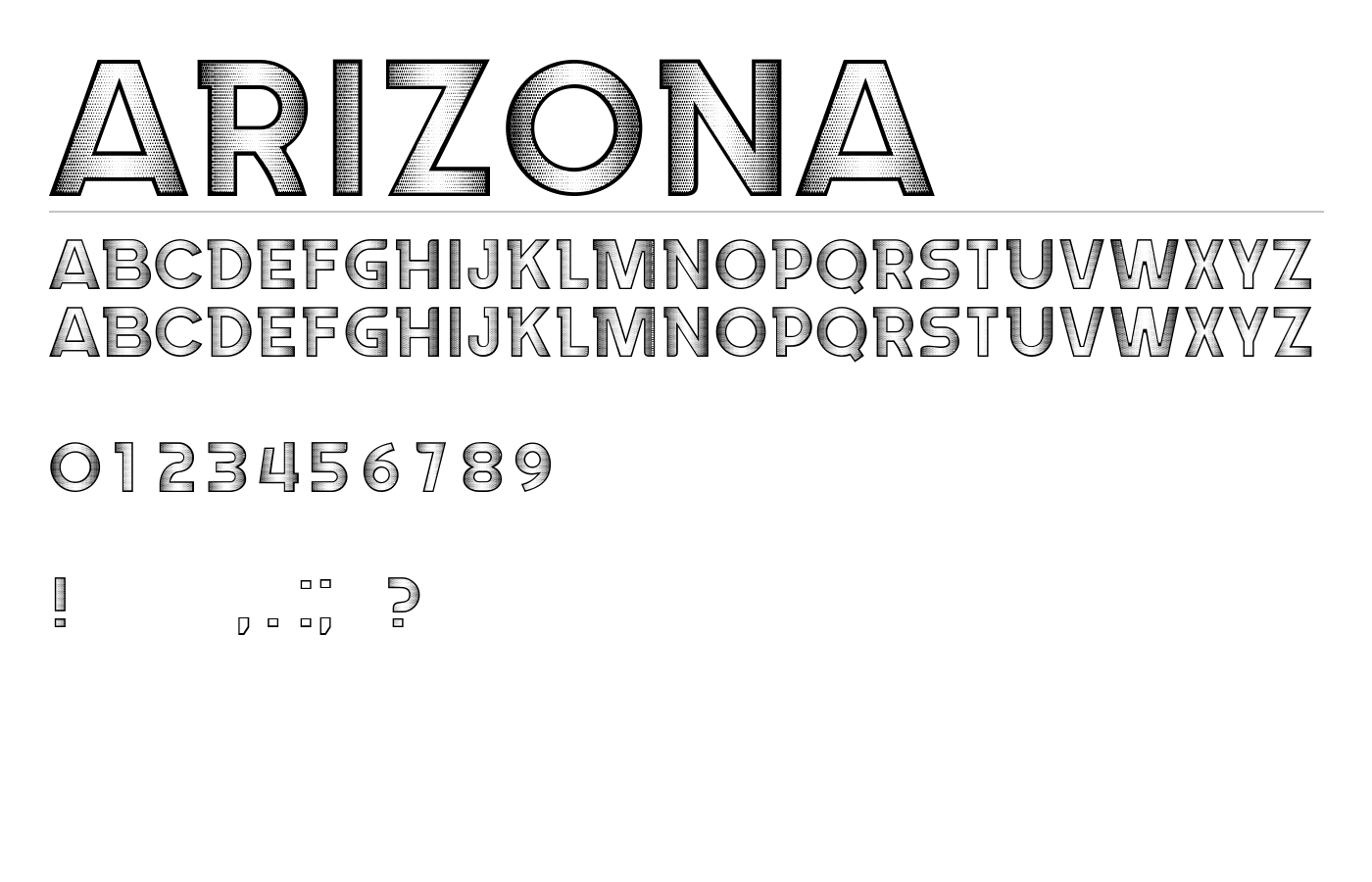
Arizona is a bold, geometric sans serif font featuring a striking halftone shading effect that adds a dynamic, retro-modern flair. Its clean, uppercase letterforms and uniform stroke width make it ideal for eye-catching headlines, logos, and posters that want to convey a playful yet sophisticated style. This font works especially well in branding and display contexts where a sense of vintage charm combined with contemporary sharpness is desired.
Arizona Font
About Arizona Font